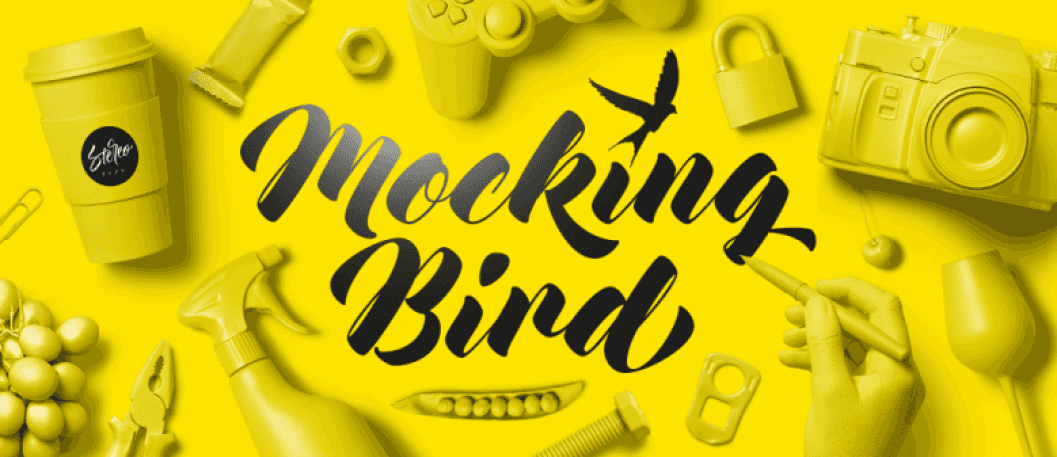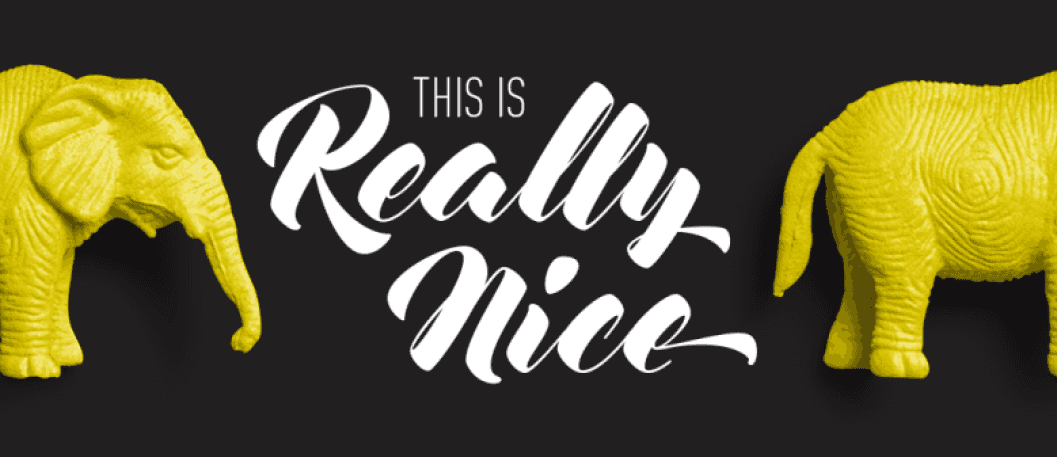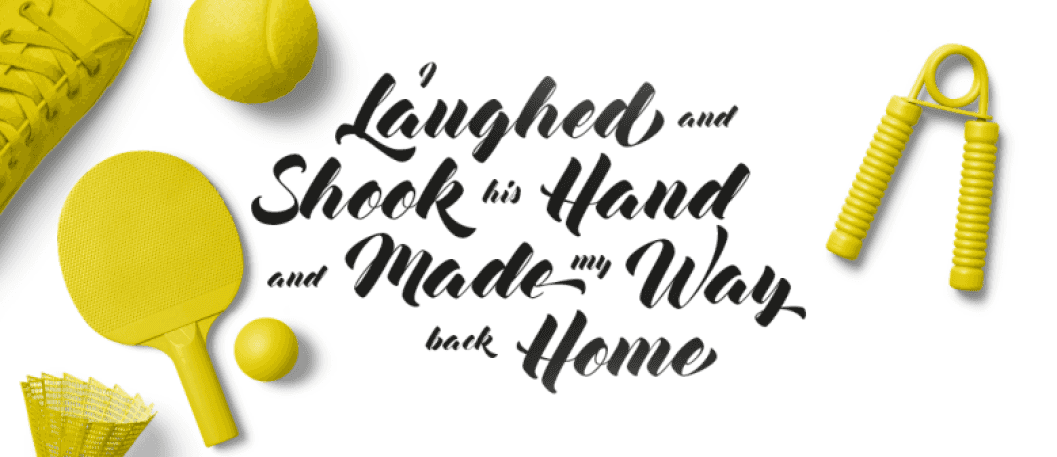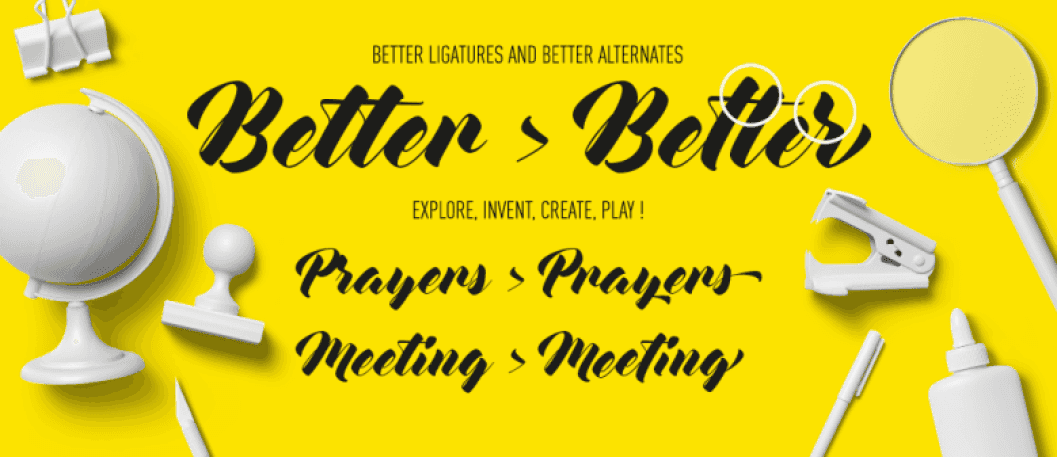
Mocking Bird is a script font with much stroke intensity; it features rather sensual curves. It is worth emphasizing that the company version has 62 alternative glyphs in addition to contextual ligatures for your use.